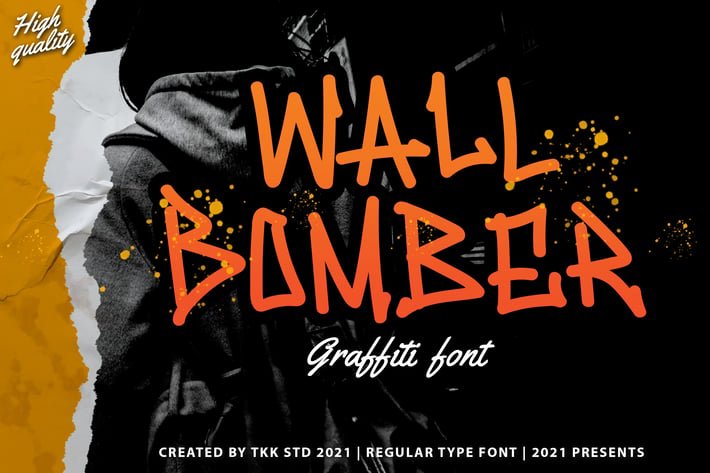
Graffiti Font - Wall Bomber
Wall Bomber - Urban Graffiti Font
Wall Bomber is an urban graffiti font that delivers an aggressive handwritten style with expressive brush pressure, tight kerning, and street-smart energy. Built with bold contrast and sharp, jagged edges, this font mimics the visual tension of real graffiti tags while maintaining readability for digital and print layouts.
Its vibe is rebellious, bold, and artistic—just like the subcultures it represents. With asymmetric strokes and a raw letter structure, Wall Bomber thrives in urban fashion, extreme sports branding, concert posters, and streetwear collections. It’s the kind of typeface that demands attention and communicates attitude in every character.
From underground hip hop flyers to gritty fashion drops, Wall Bomber speaks to audiences who crave authenticity and edge. Perfect for branding sneaker lines, urban podcast covers, DJ logos, and graffiti-themed content, this font creates immediate visual intensity. If you're targeting a street-smart audience or want to inject rebellious character into your visuals, Wall Bomber is your go-to tool for impact.
Key Features
What Makes Wall Bomber Stand Out:
Brush-Tipped Energy: Inspired by real spray strokes and graffiti pens
Streetwise Vibe: Built for brands that want to speak to the underground scene
High-Contrast Forms: Each letter pops off the screen with bold visual rhythm
Versatile Impact: Use on apparel, music covers, storefronts, or extreme sport graphics